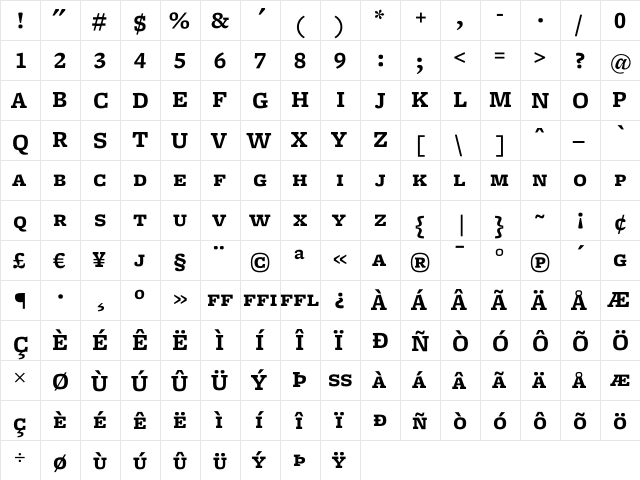
Freight Micro Bold SC
| Foundry | Joshua Darden & Phil's Fonts, Inc |
| Designer | Joshua Darden |
Design Context for Freight Typeface
Freight takes a measured approach to typography — its balanced proportions and neutral character make it a reliable workhorse for both digital and print work. The heavy weight commands attention and anchors typographic hierarchies.